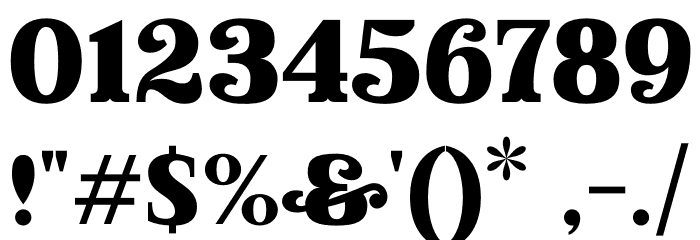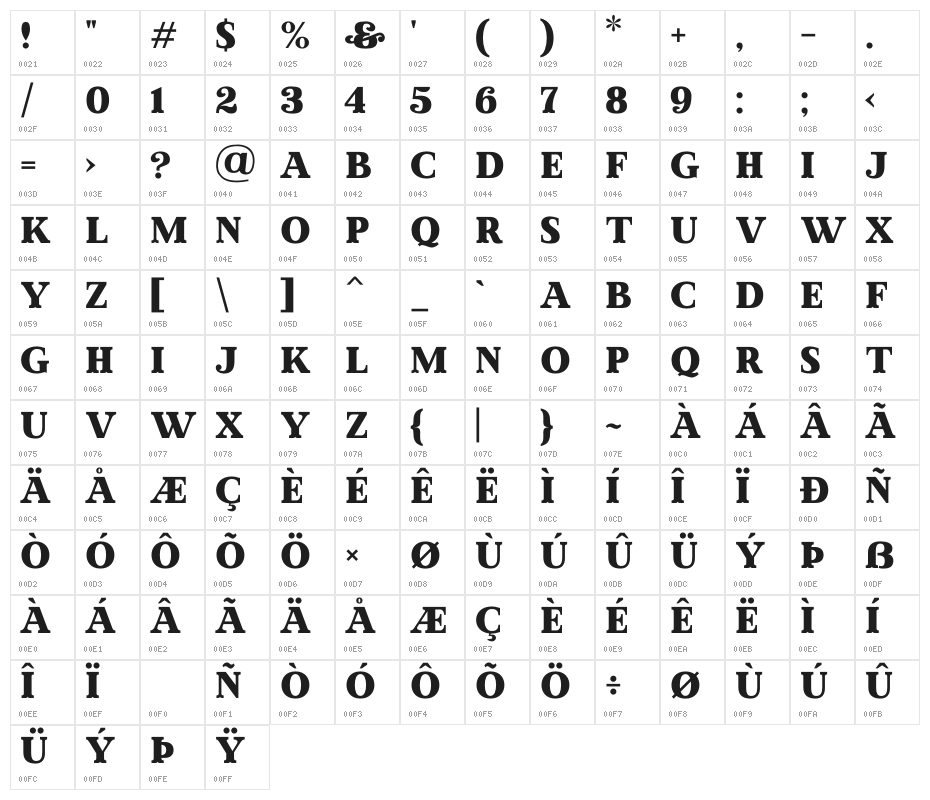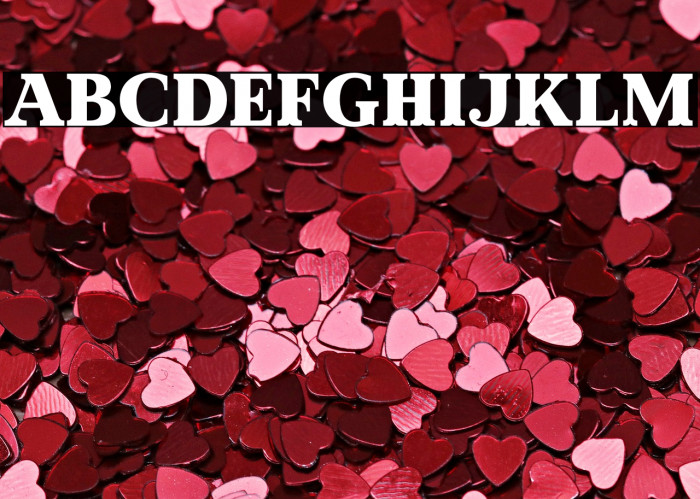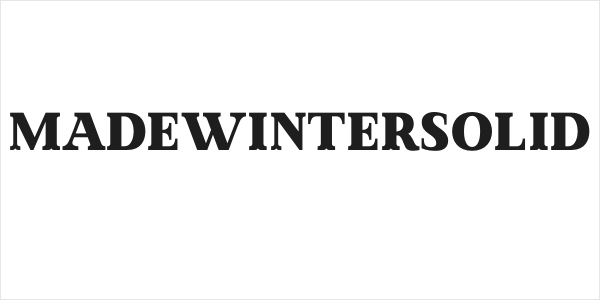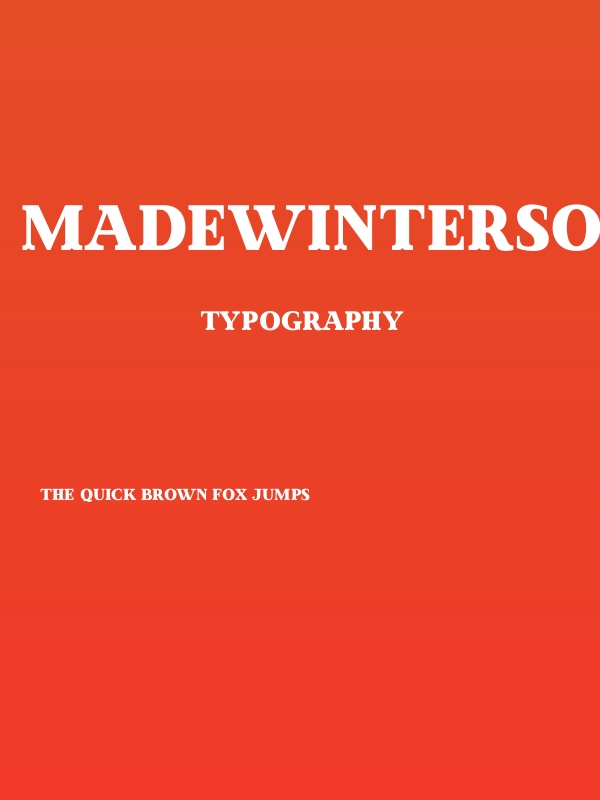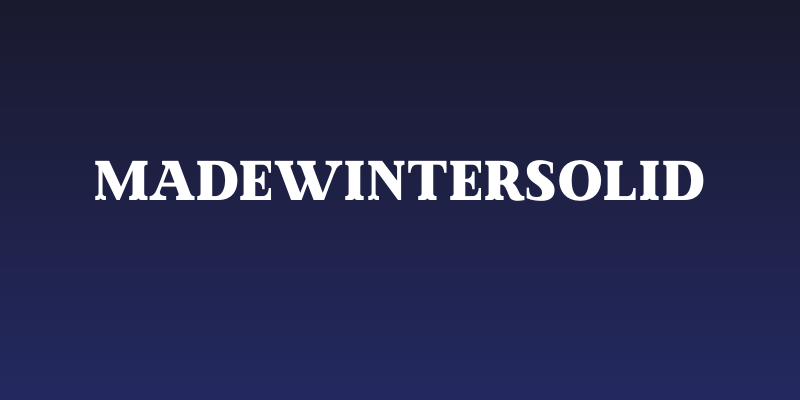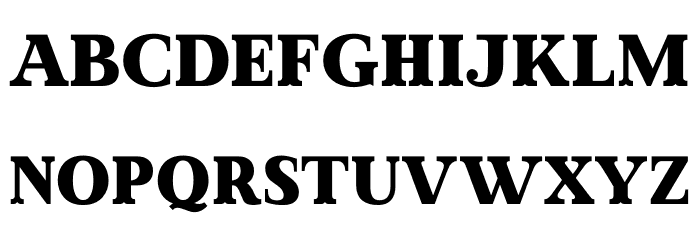
MadeWinterSolid Font
MadeWinterSolid Description
This font exhibits a bold and commanding presence with its strong, thick strokes and pronounced serifs. The uppercase letters are robust and evenly spaced, providing a sense of stability and authority. The lowercase letters maintain the same boldness, ensuring consistency throughout the text. Numbers are equally bold, making them stand out clearly. Special characters are designed with the same attention to detail, ensuring they integrate seamlessly with the rest of the font. The overall design is reminiscent of classic serif fonts but with a modern twist, making it versatile for various applications.